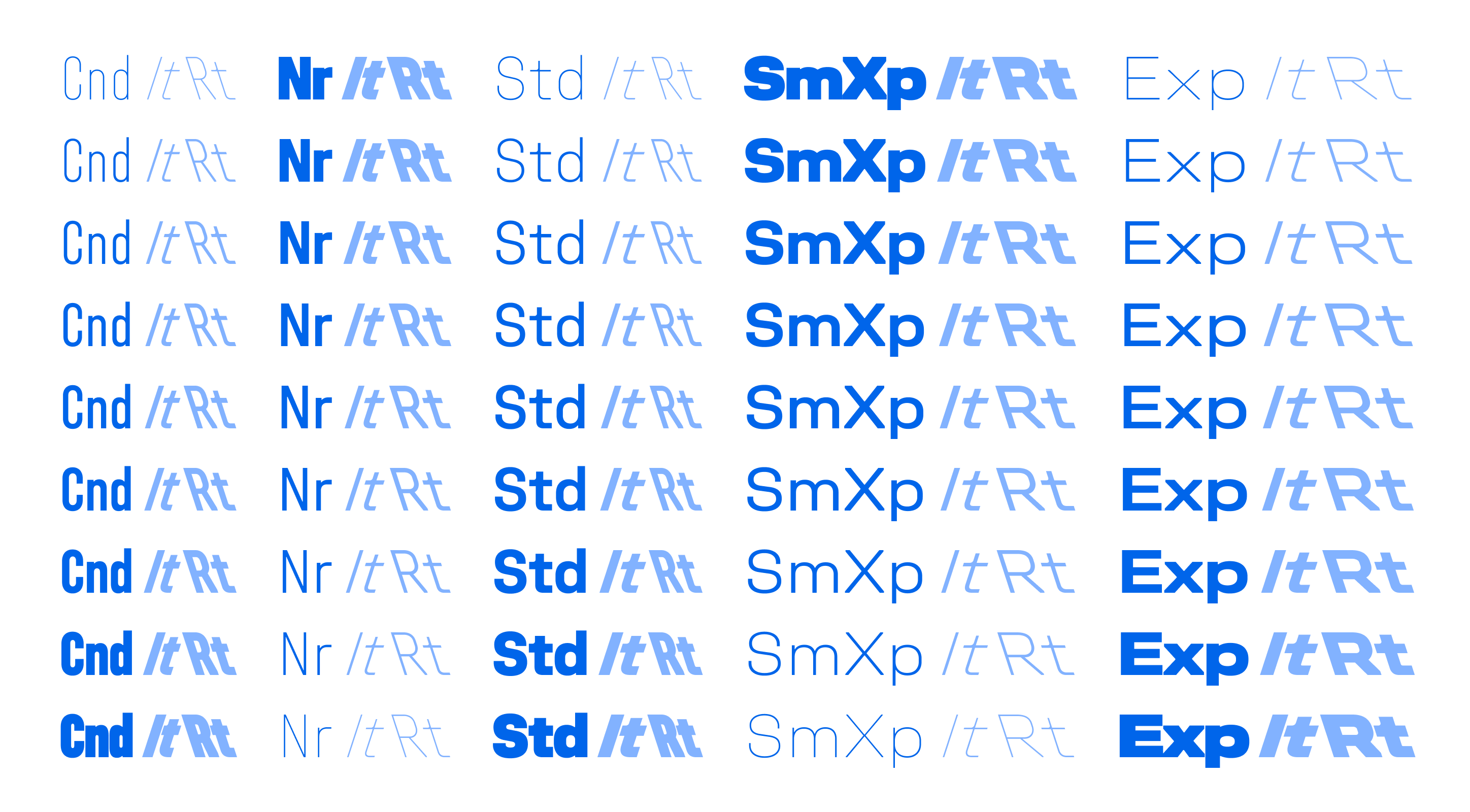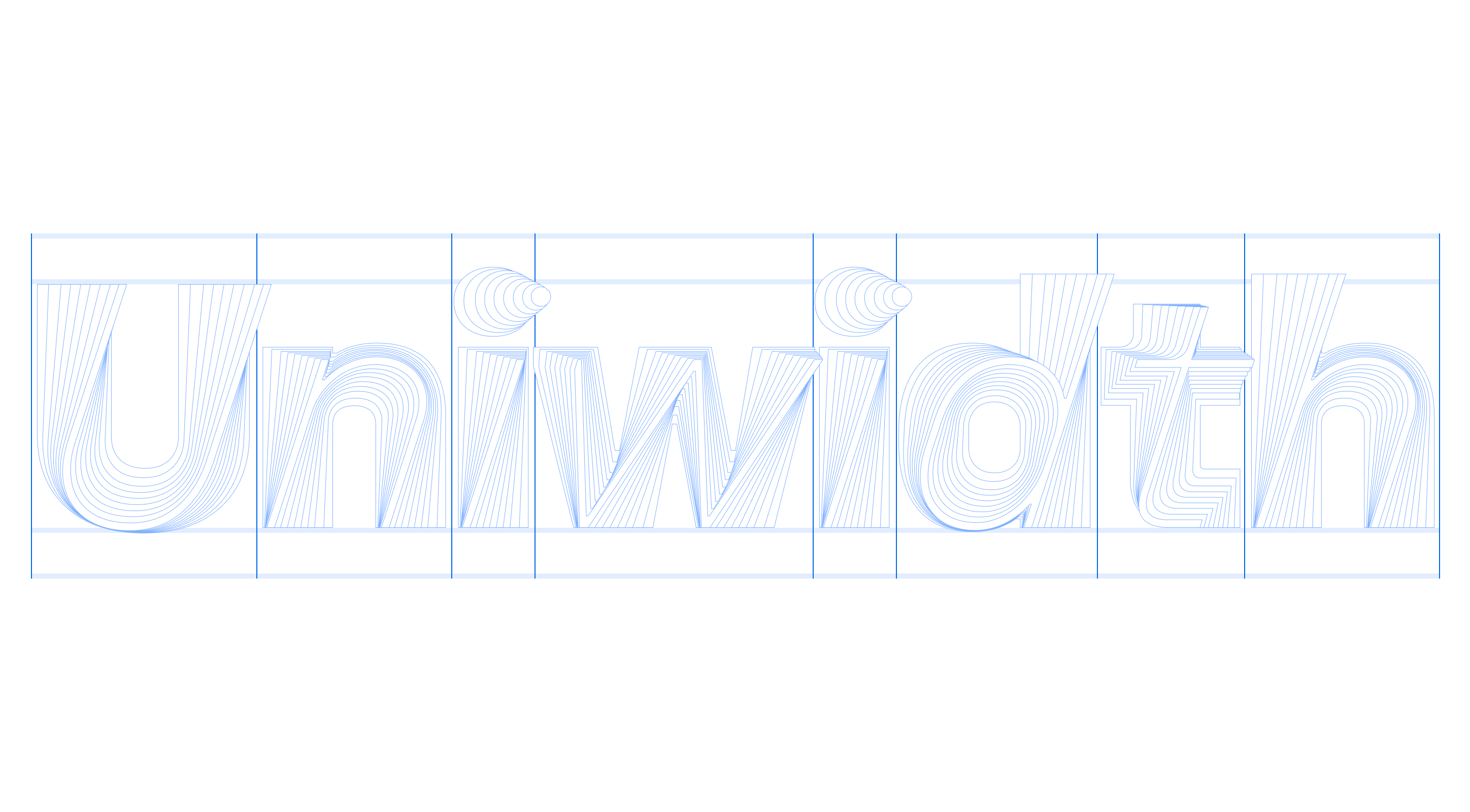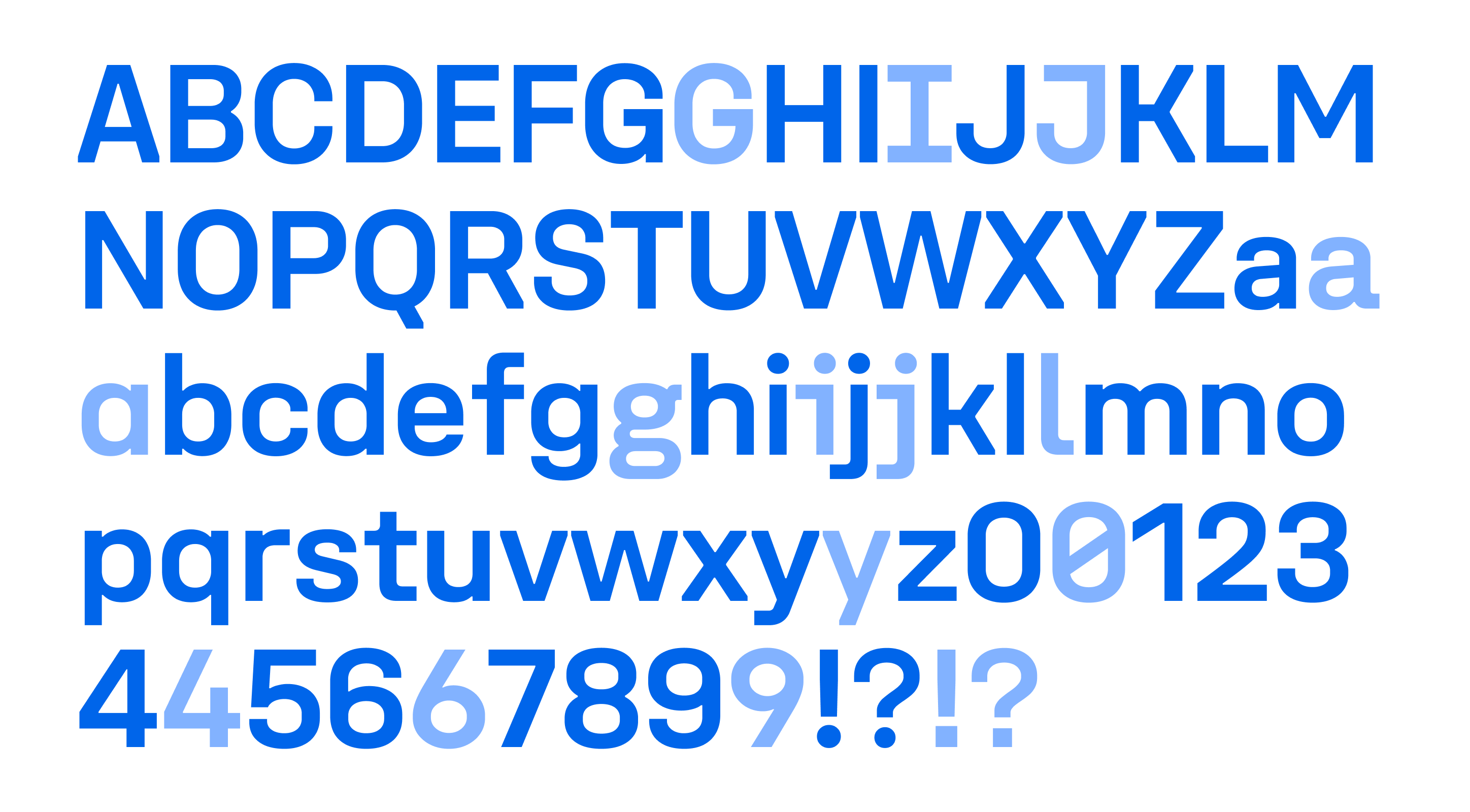
Unifora
ABOUT UNIFORA
Unifora is a massive sans-serif uniwidth superfamily with an industrial edge and architectural precision. Unifora starts where DIN leaves off, taking the constructed logic of technical lettering and pushing it to meet the demands of modern screens, without softening the edges.
Comes with 5 widths, 9 weights, and matching italic and retalic styles with slants up to 18°. The variable font spans all three axes: weight, width, and slant—in both directions.
The superfamily is available as five standalone sub-families, each built around the uniwidth principle: within any given width, every glyph holds its advance width across all weights and styles—so text never reflows when weight shifts. Unifora Condensed is built for data-dense interfaces: dashboards, table columns, and tight mobile layouts. Unifora Narrow handles compact body copy and sidebars where Condensed would feel too disciplined. Unifora Standard is the default width—the family at its intended proportions, comfortable from small UI labels to large display. Unifora Semiexpanded adds presence for editorial layouts and marketing pages. Unifora Expanded is for display, signage, and wide-format applications where the letterforms need to command space. The Unifora user’s manual covers every width, axis value, and OpenType feature in full.
If type personality could be mapped on a scale from zero—a face so neutral it disappears behind content—to twenty, where every detail announces its industrial origin, Unifora sits around ten: unmistakably technical, architecturally precise, with enough presence to define a design language. For projects that need a quieter register—a touch of technological flavor without the full industrial signal—Innovator Grotesk occupies that space: around two on the same scale, functional and modern without calling attention to itself.